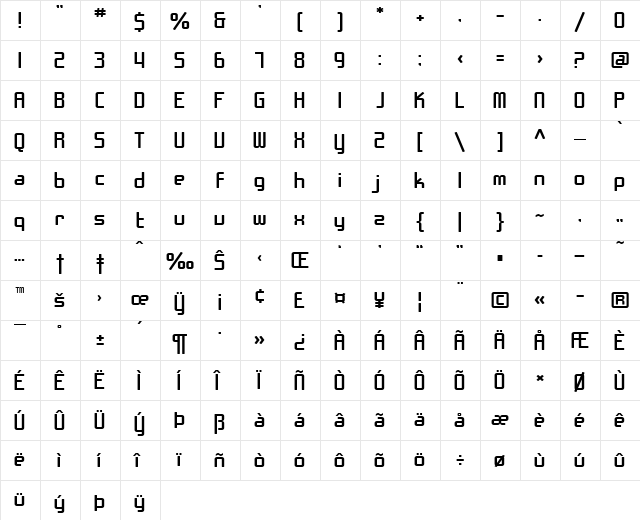
SF Chrome Fenders Extended Regular
| Designer | ShyFonts Type Foundry |
Design Context for SF Chrome Fenders Extended Typeface
SF Chrome Fenders Extended takes a measured approach to typography — its balanced proportions and neutral character make it a reliable workhorse for both digital and print work.